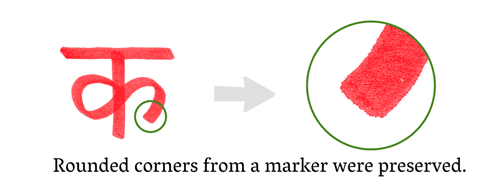
The Making of a Typeface
Have you ever wondered what goes into creating a font? Type designer Rob Keller gives you his firsthand account.
Rob Keller took almost three years to design the Vesper typeface. He chronicles the process in the article "The Making of Vesper" on the excellent blog i love typography.
Vesper began as a student project and was informed by Kellers' fascination with the Devanagari alphabet and non-Latin typography. His experiments in Devanagari lettering and calligraphy are reflected in Vesper’s stylistic features.